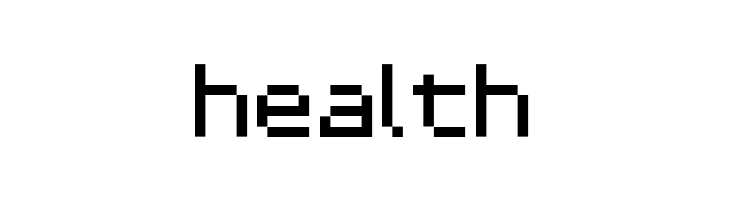
A pixelated, retro-style font with a bold, geometric design.
A pixelated, retro-style font with a blocky, monospaced design.
A pixelated, bitmap-style font with a retro digital aesthetic.
A pixelated, retro-style font with a blocky, geometric design.
A dot matrix font with a digital, retro aesthetic.